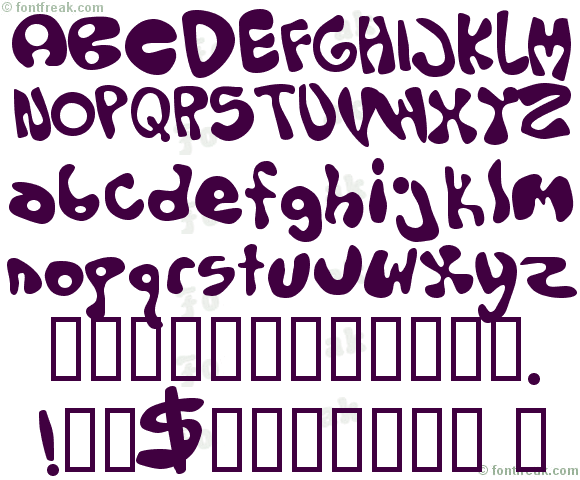
Olopus
About Olopus
Olopus, designed by Phillip Cavette in 1998, is a distinctive display font that captures attention with its unique visual style. This freeware typeface combines playful curves and rounded forms, making it a standout choice for various creative applications. The strokes exhibit a moderate weight, allowing for a balanced presence on both light and dark backgrounds. The font's spacing is thoughtfully designed, ensuring legibility while maintaining an artistic flair. Decorative elements appear in the form of whimsical loops and playful motifs, lending a sense of fun and creativity to any text.
The Olopus font is particularly well-suited for a range of use cases. Its charming appearance makes it an excellent choice for wedding invitations, where a touch of elegance is desired alongside a playful vibe. Additionally, it works beautifully for children's book covers, capturing the imagination of young readers with its friendly and whimsical design. Restaurant menus can also benefit from the inviting nature of Olopus, providing a warm and approachable aesthetic that enhances the dining experience. Furthermore, graphic designers may find it ideal for branding projects, especially those targeting a younger audience or seeking a more casual and relaxed tone.
Targeted primarily at graphic designers, small business owners, and content creators, Olopus provides versatility and creativity in its application. The font's unique characteristics make it an excellent tool for anyone looking to inject personality into their projects.
What sets the Olopus font apart is its ability to blend fun with functionality. Its playful design elements allow it to stand out in a crowded marketplace, making it a memorable choice for any project. For those interested in incorporating this distinctive font into their work, an Olopus font free download is readily available, making it accessible for all creative endeavors.